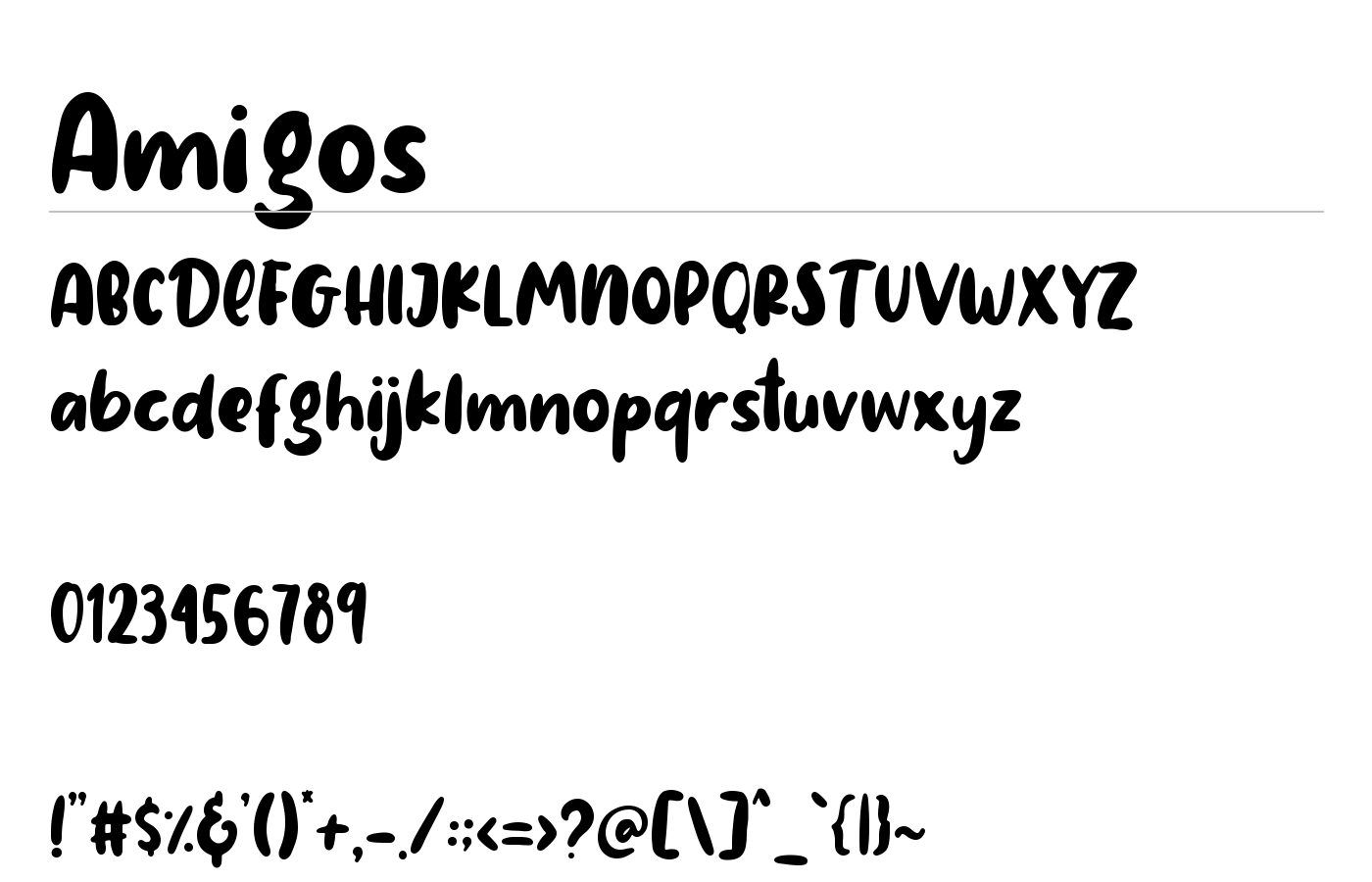
Amigos is a bold, playful sans serif font with a hand-drawn, casual feel. Its rounded, slightly irregular letterforms and generous x-height create a friendly and approachable personality, making it ideal for informal branding, children's materials, and creative projects that seek a warm, personal touch. This font works well in headlines, logos, and packaging where a lively, fun vibe is desired.
Amigos Font
About Amigos Font